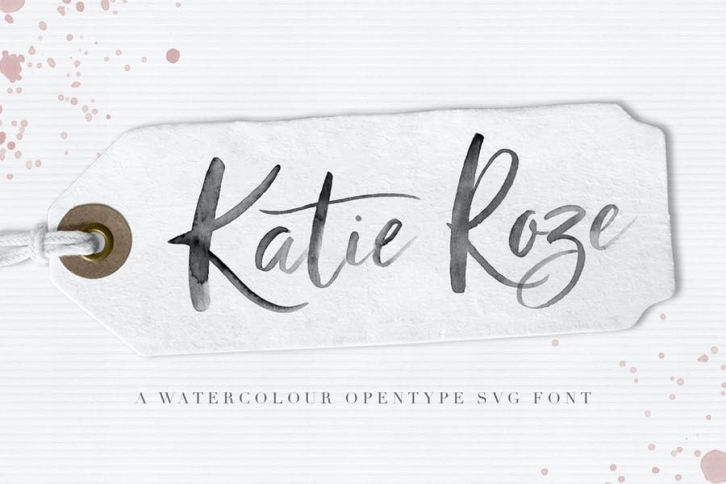
Katie Roze Watercolor Opentype SVG Font
Meet Katie Roze, an elegant watercolour font that's very suitable for headers, logo's, wedding design, social media posts and your other creative projects that can use a flowy feminine touch.
This font has alternates for each glyph and a set of ligatures as well. Acces them in Photoshop through window > glyphs.